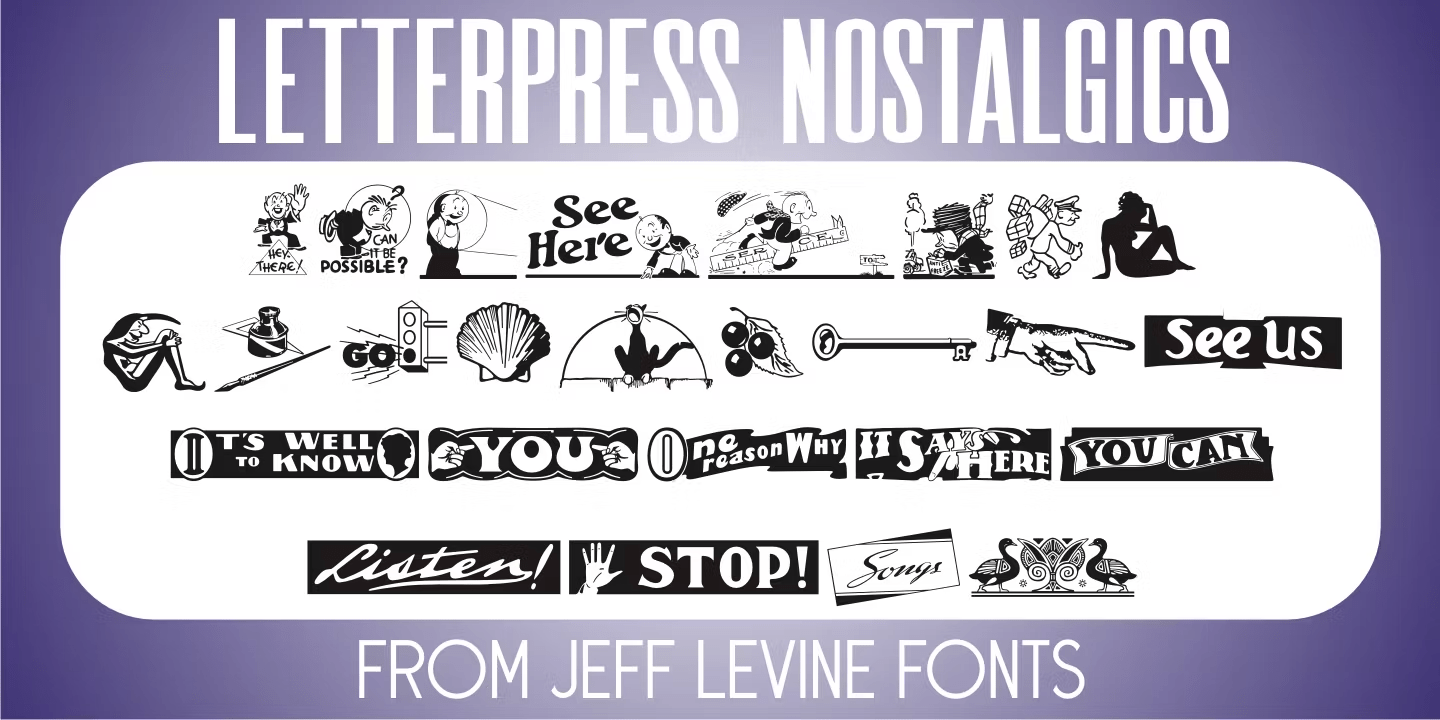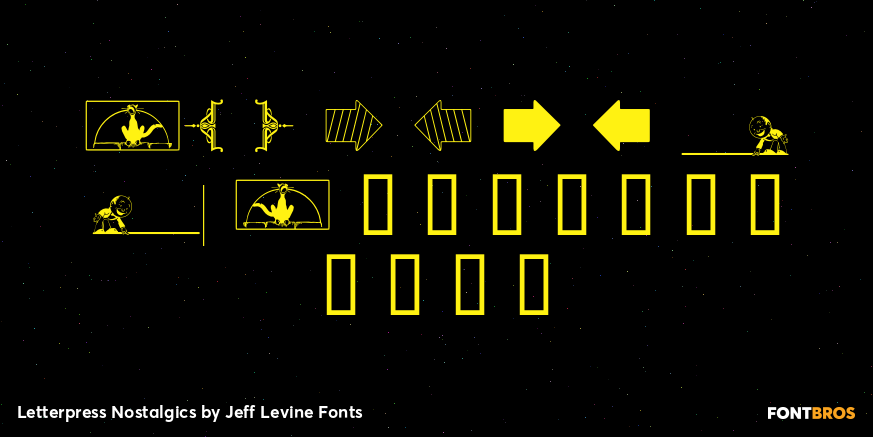
Letterpress Nostalgics
Letterpress Nostalgics JNL is one of many collections offered by Jeff Levine Fonts of stock illustrations redrawn from examples of vintage printers' cuts.